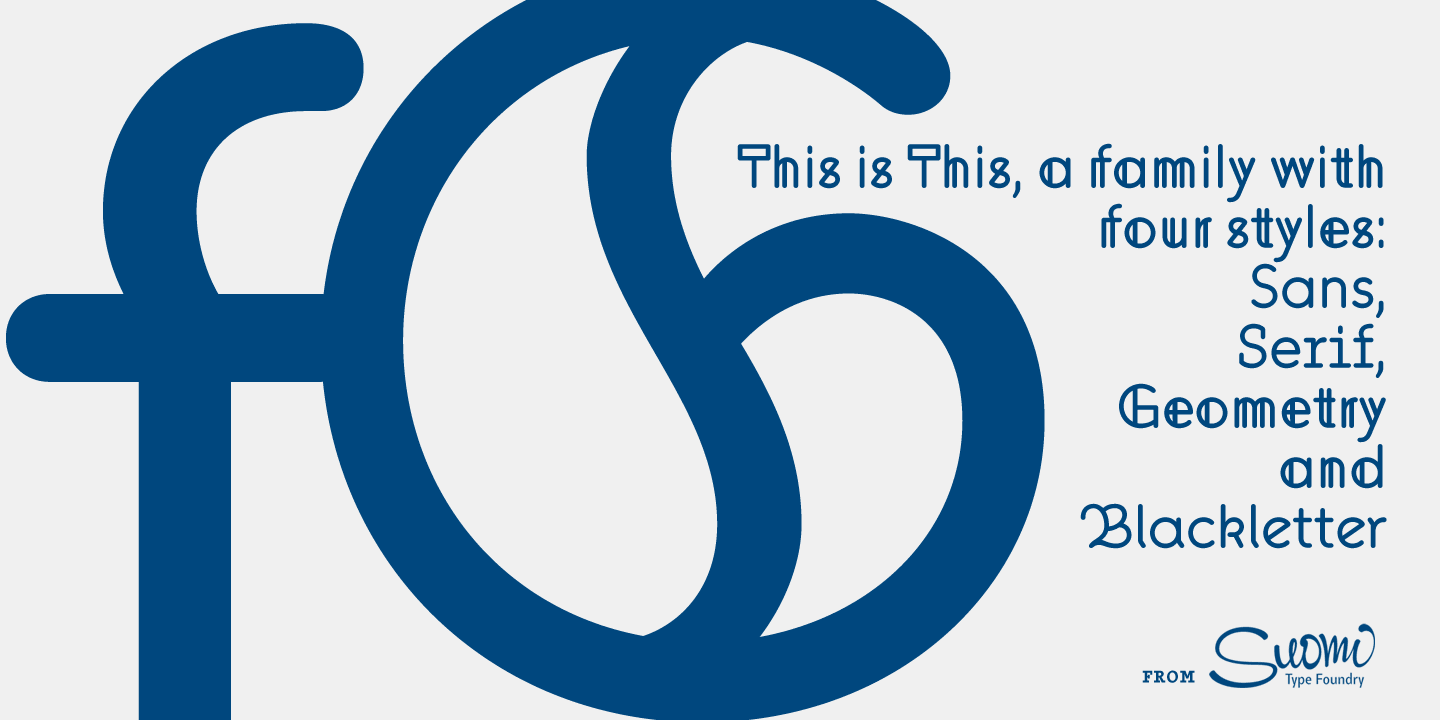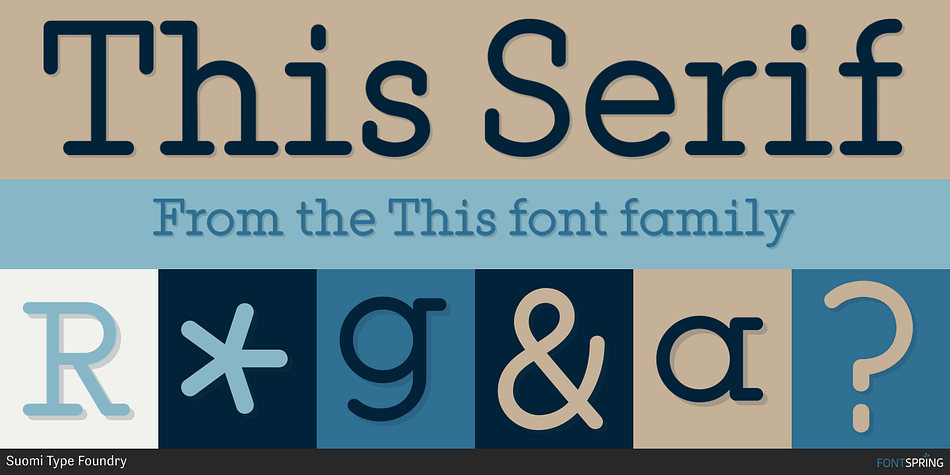
This is a multiple classification font family. This typeface has four styles and was published by Suomi Type Foundry.
This Serif
An all new rounded type family with Sans, Serif, Geometric and Blackletter!